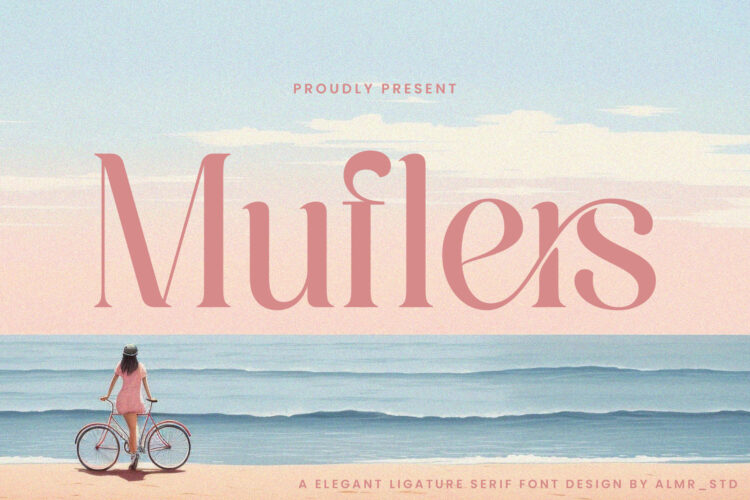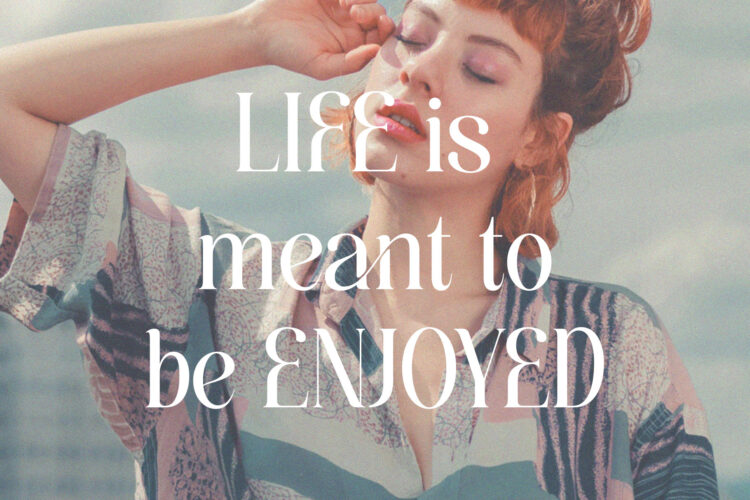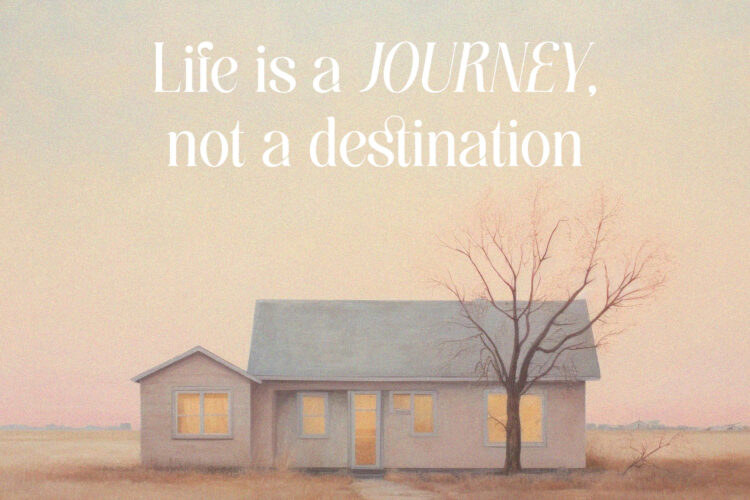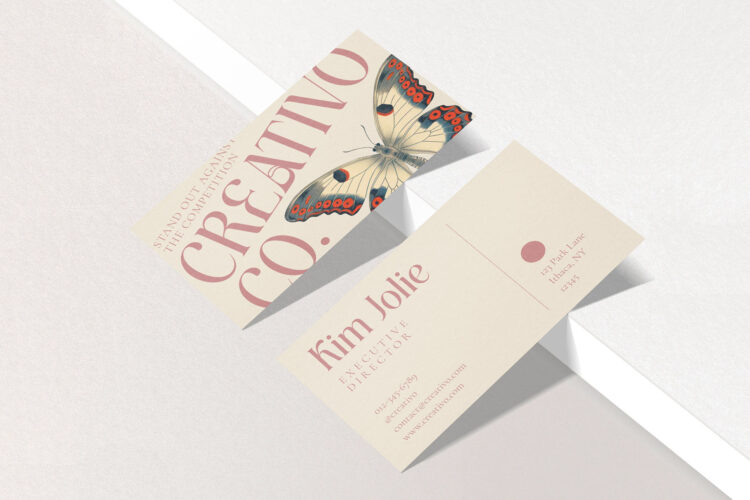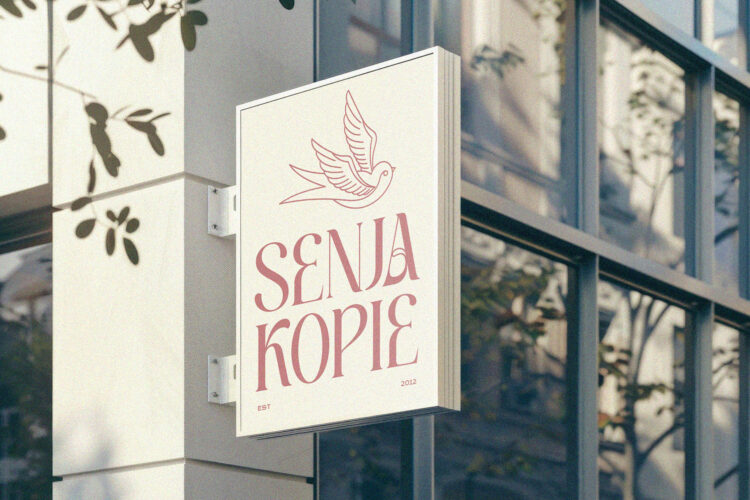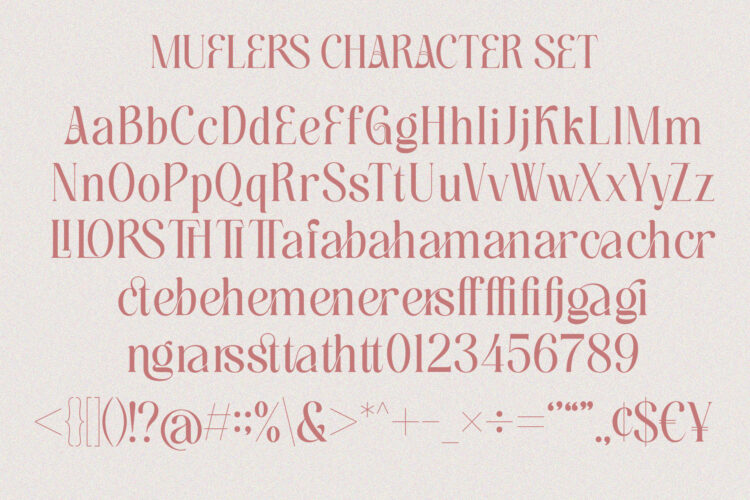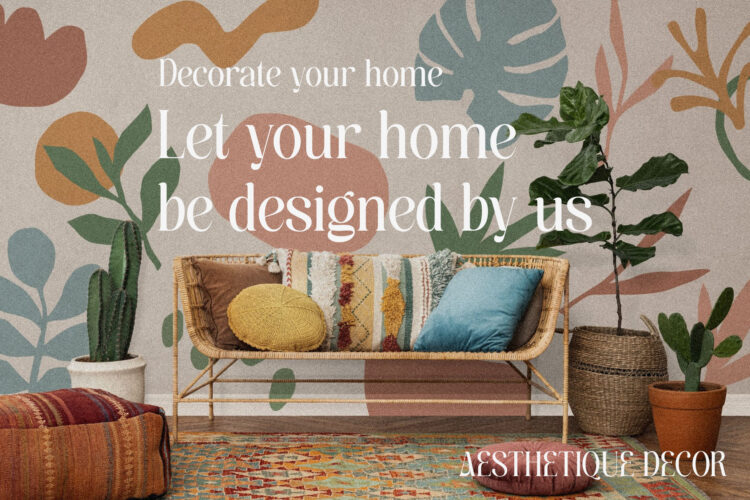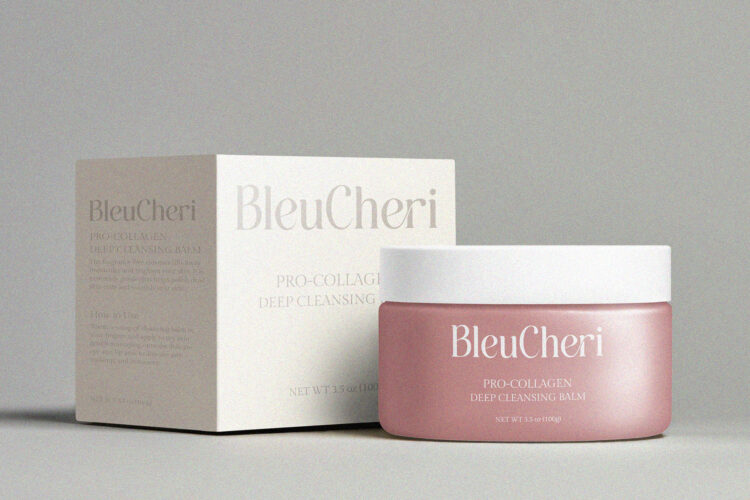
Introducing Muflers – Ligature serif font. Muflers is a ligature serif font, stylish & elegant serif font, This type of font is very suitable for your various needs such as branding projects, logos, social media posts, advertisements, labels, product packaging, photography, wedding designs, watermarks, invitation product designs, stationery, and any project.
– Ligature & alternates
– Symbols
Muflers – Ligature Serif